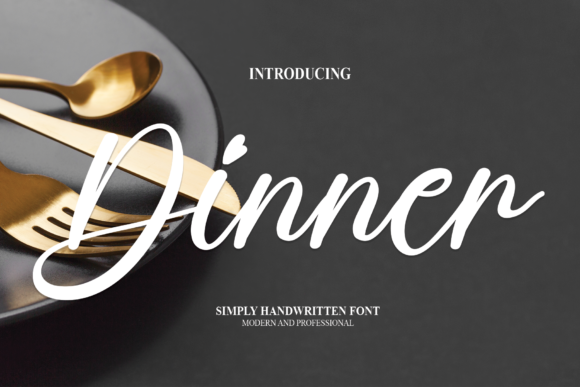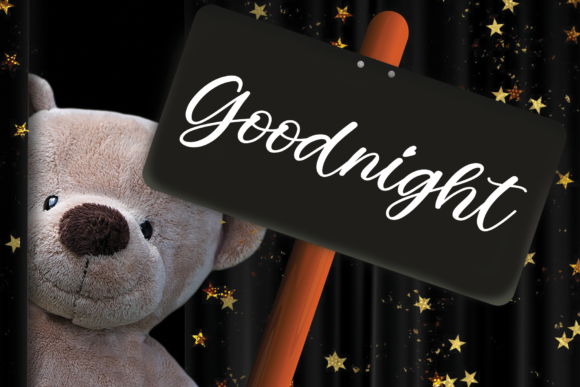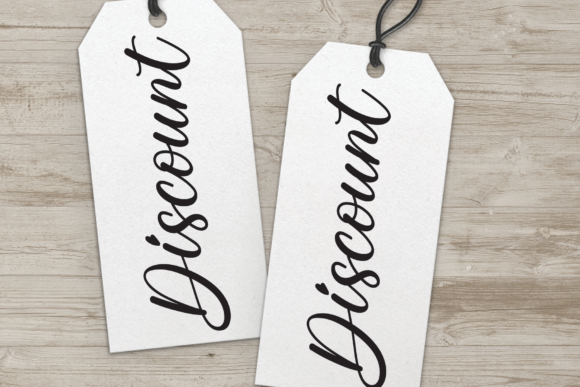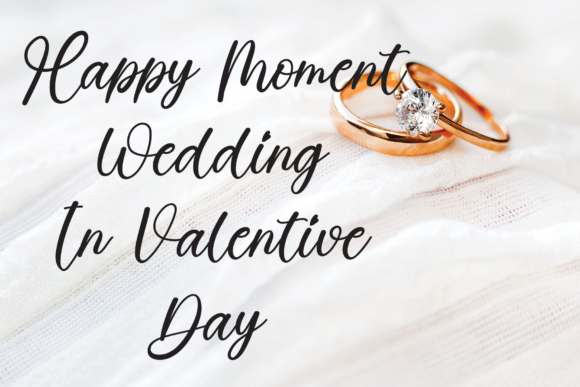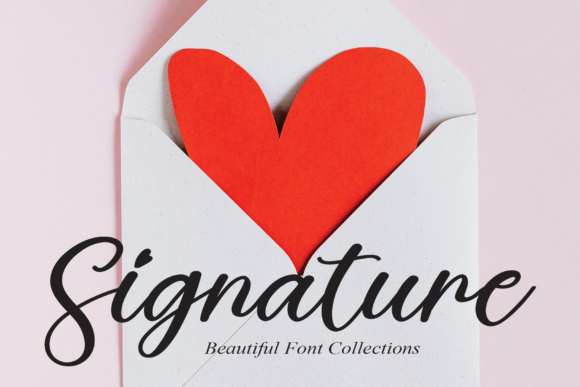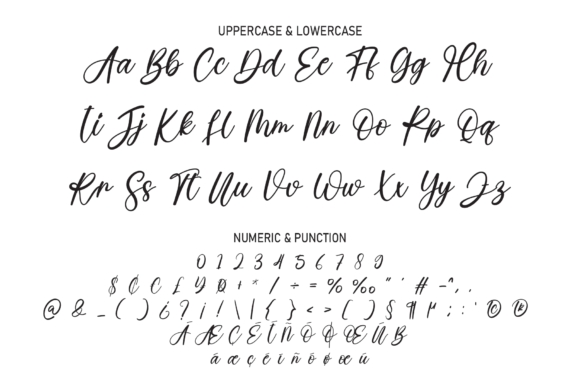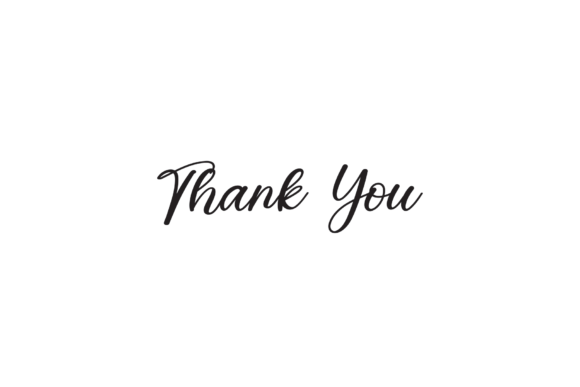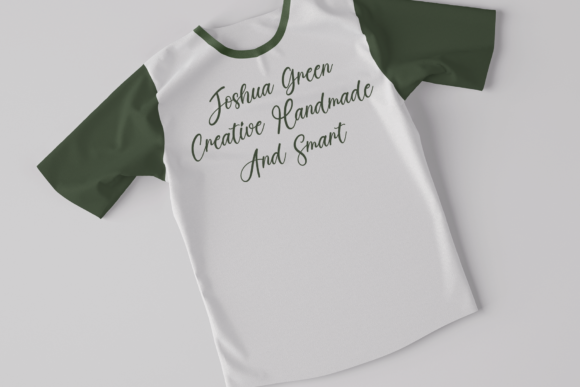
Dinner Font
About Dinner Font
Dinner is a romantic and sweet calligraphy typeface with characters that dance along the baseline. It has a casual, yet elegant touch. The only limit is your imagination!